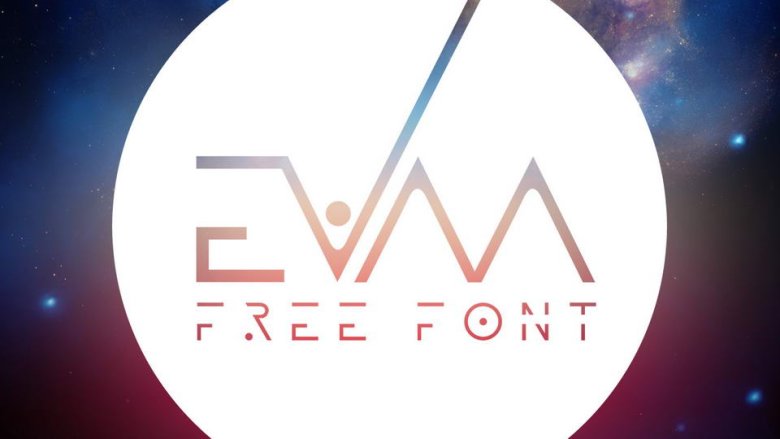
Evaa Typeface
Continued is a display font, very impressive. It’s free for all purposes of your work. Introducing Evaa Font. It is designed and shared by MARK-ALAIN GRENON. EVAA – FREE FONT is perfect for display use, signage, poster, prints, editorial use, branding, logos, magazines, films and lots more.